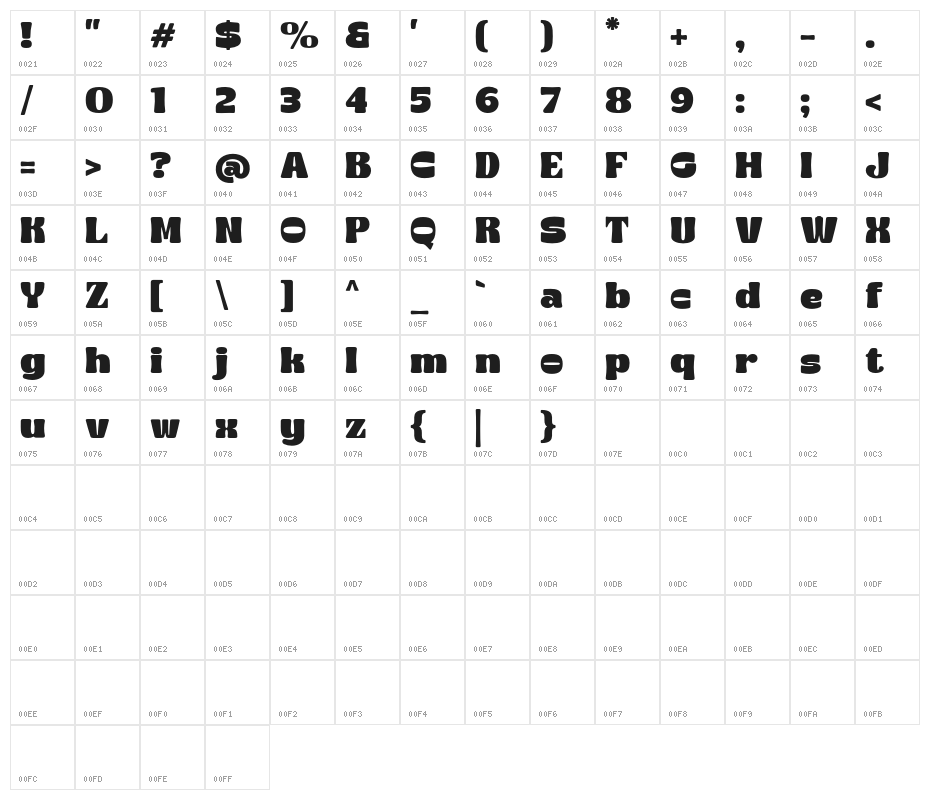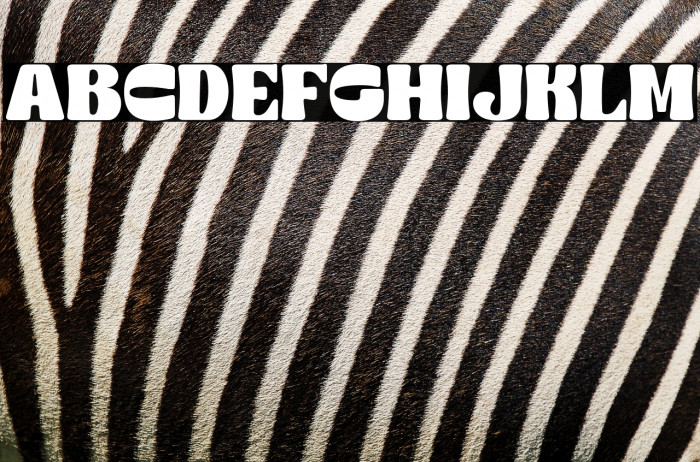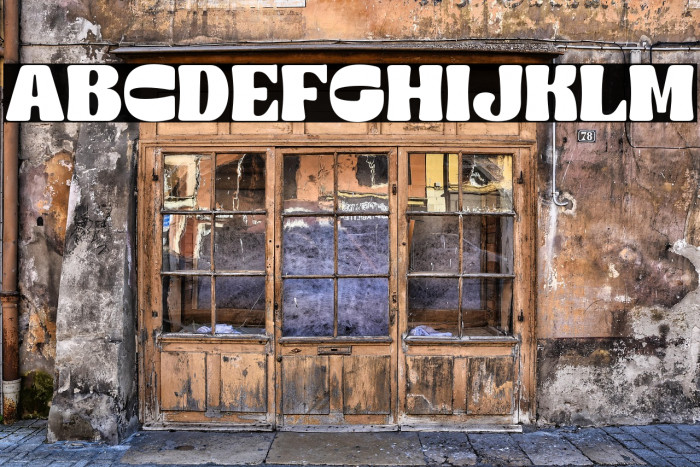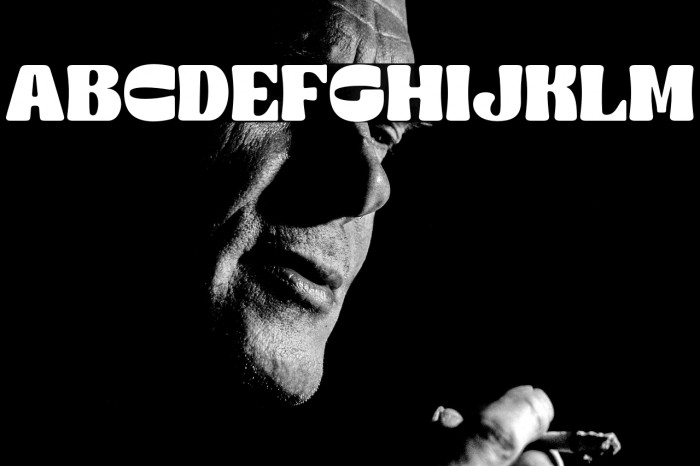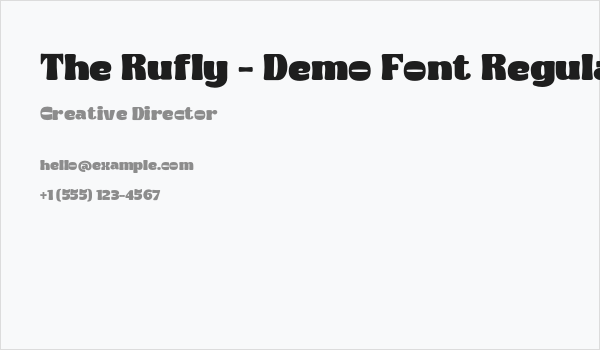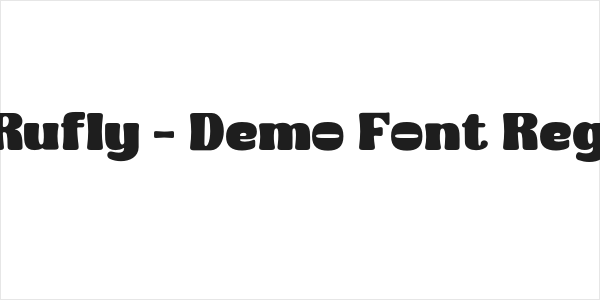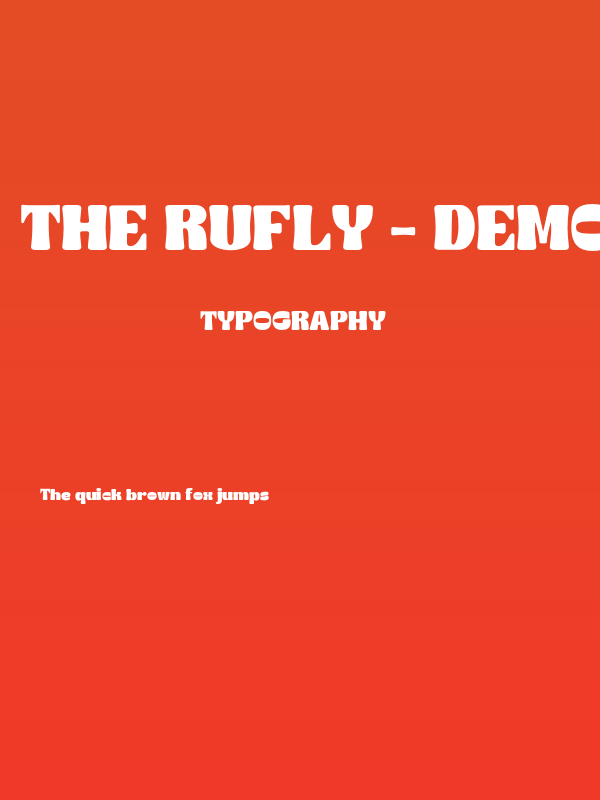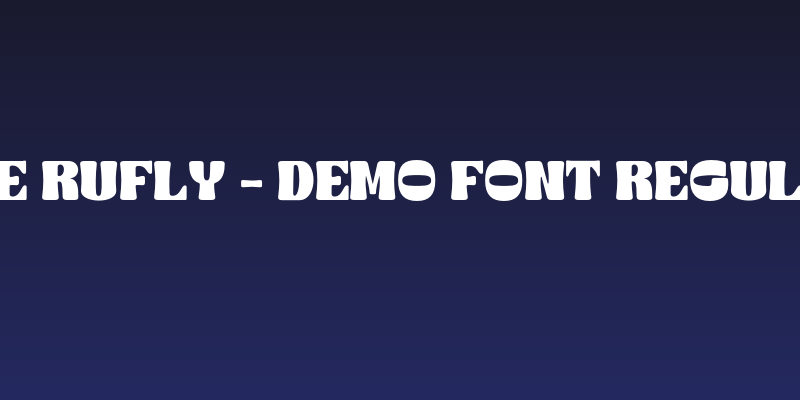
The Rufly - Demo Font Regular Font
The Rufly - Demo Font Regular Description
This font features a bold and playful design with thick, rounded strokes that give it a strong presence. The characters are uniformly wide, creating a cohesive look across both uppercase and lowercase letters. The numbers and special characters maintain the same boldness, ensuring consistency throughout. Its unique style is characterized by a slightly whimsical touch, making it stand out in any design. The font's heavy weight and rounded edges contribute to its friendly and approachable appearance, making it suitable for a variety of creative projects.
| Overall Style | Playful, Bold, Decorative |
| Proposed Projects | Ideal for children's books, playful branding, posters, and creative advertising. |